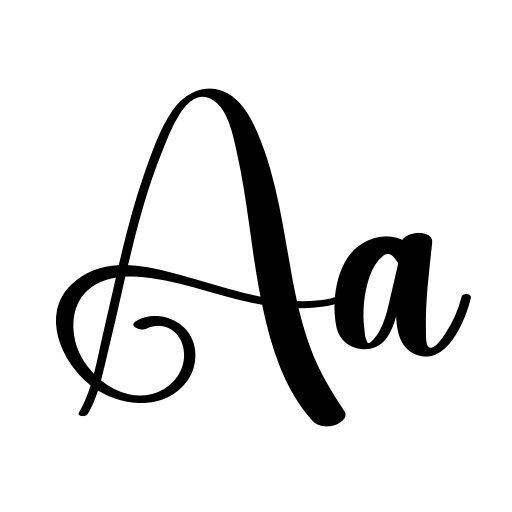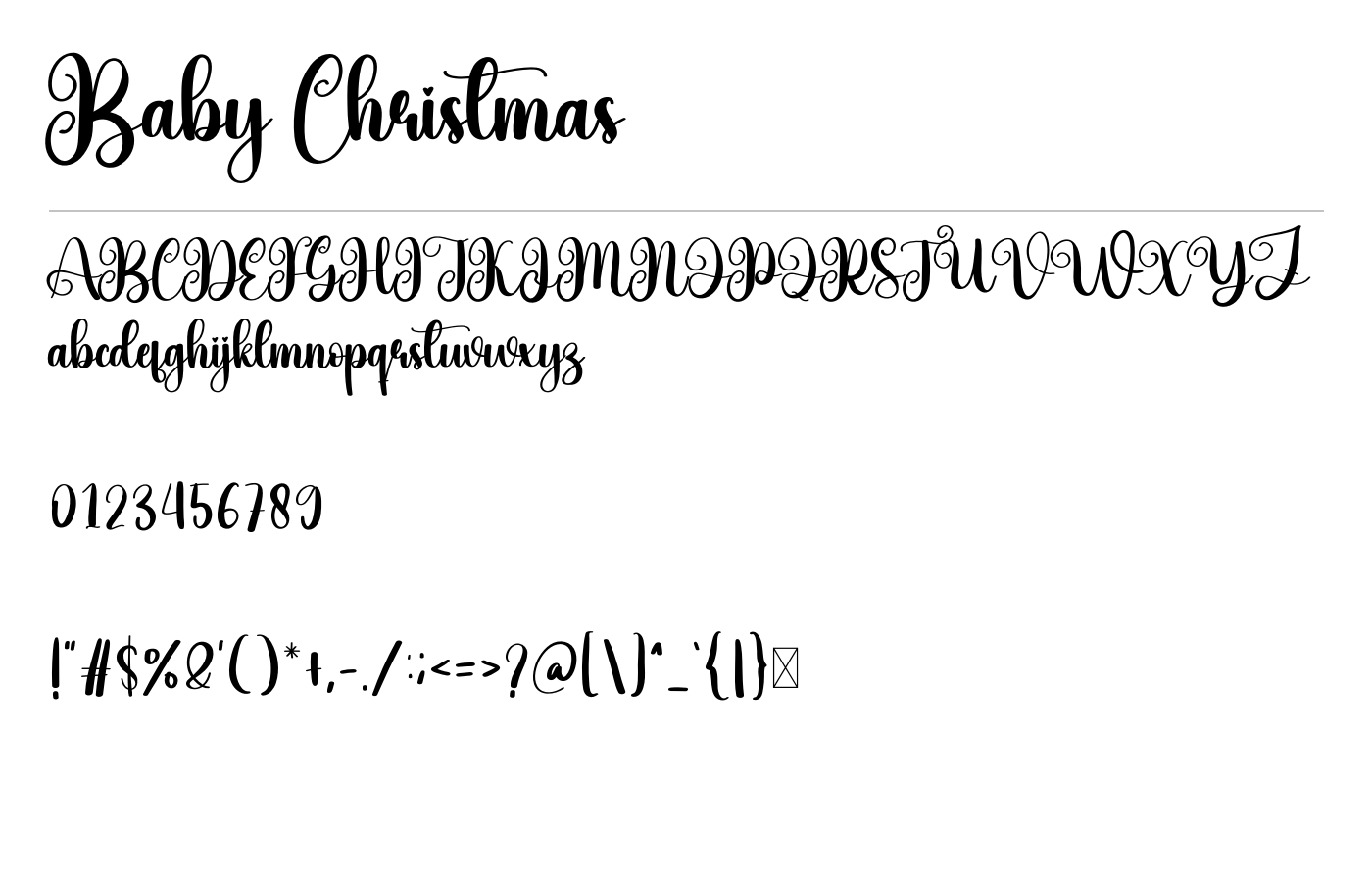
Baby Christmas is a playful script font with an elegant, whimsical flair, featuring smooth, medium-weight strokes and decorative swirls on uppercase letters. Its warm, friendly style makes it perfect for festive designs, holiday cards, and invitations, adding a charming and joyful touch. This font works best in headlines or display uses where a cozy, handwritten feel is desired.
Baby Christmas Font